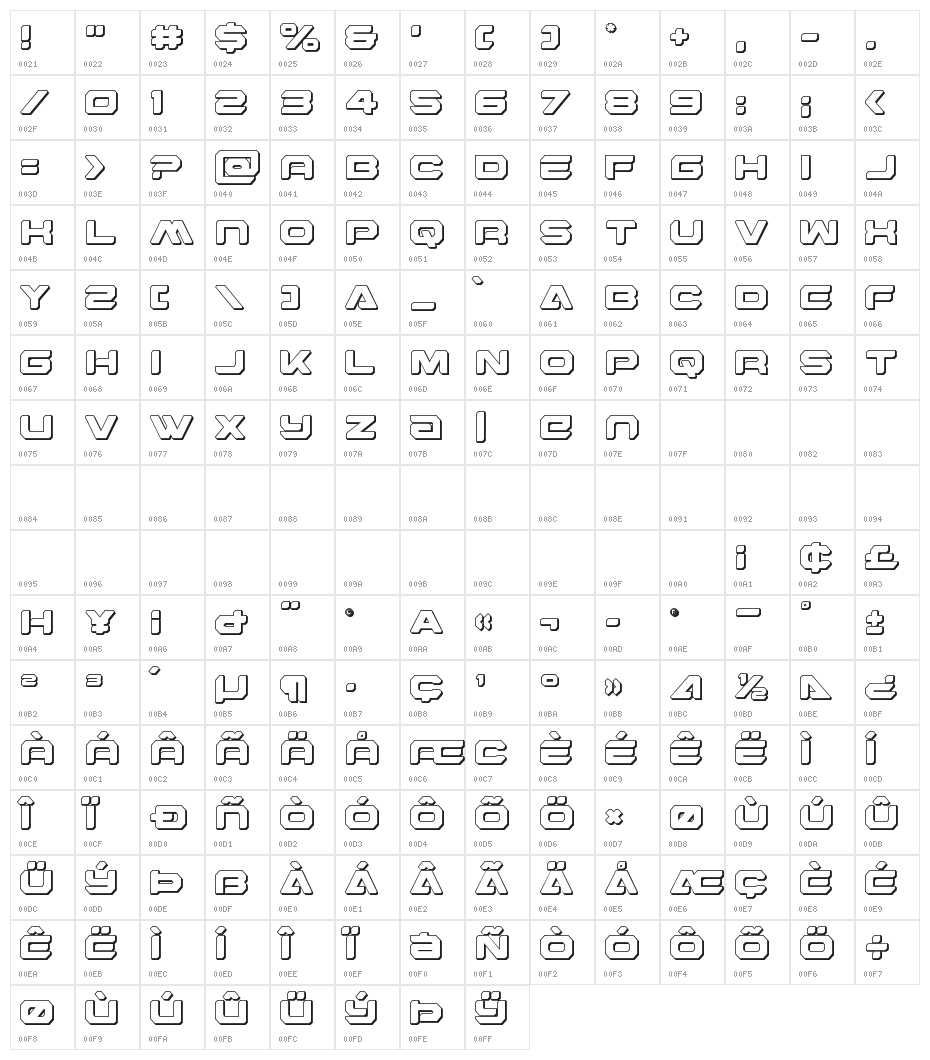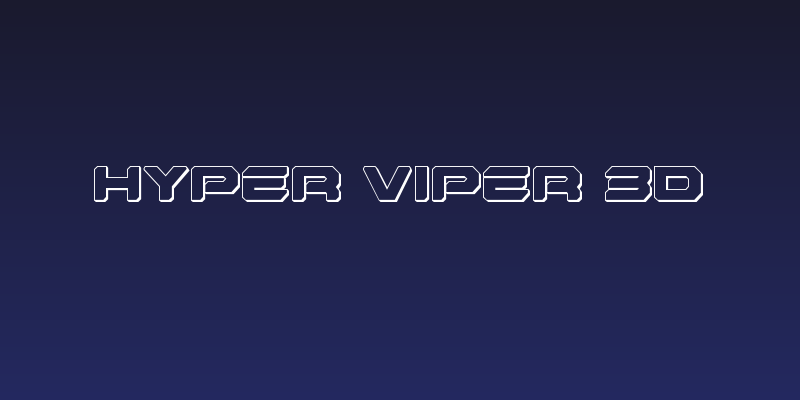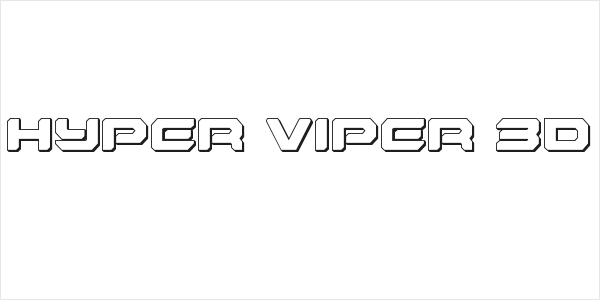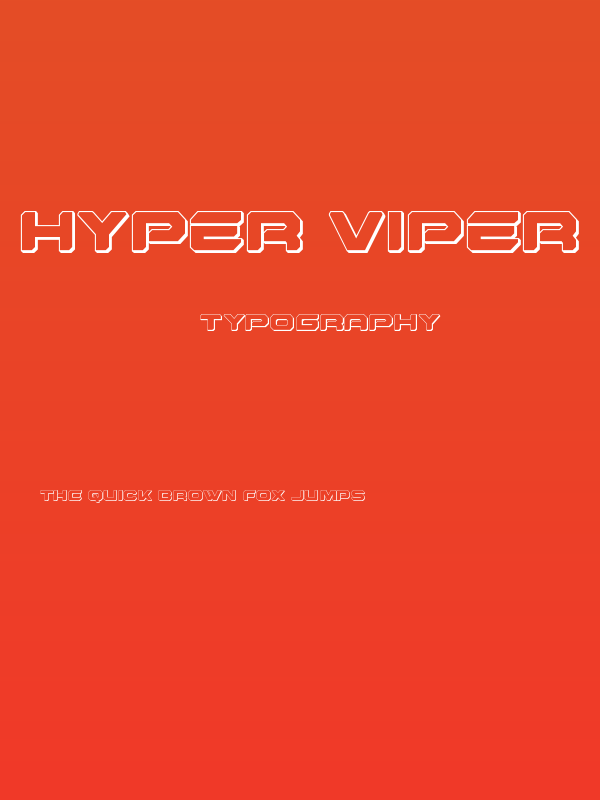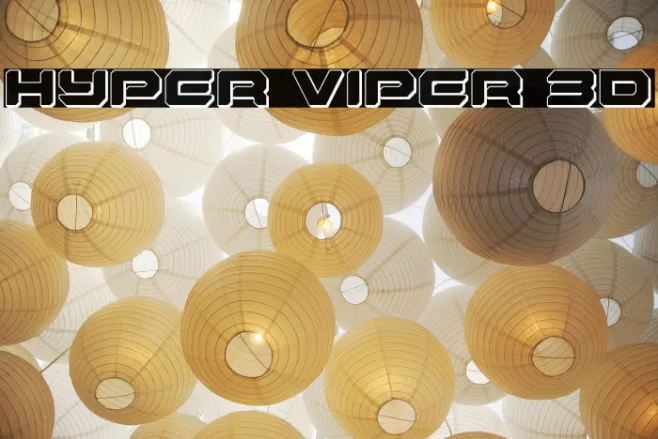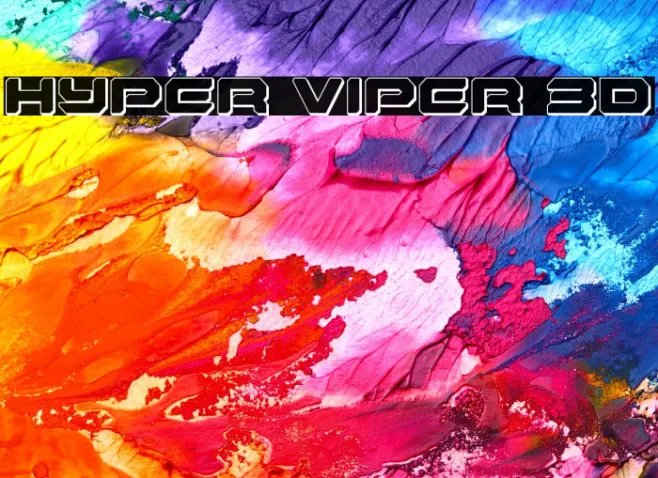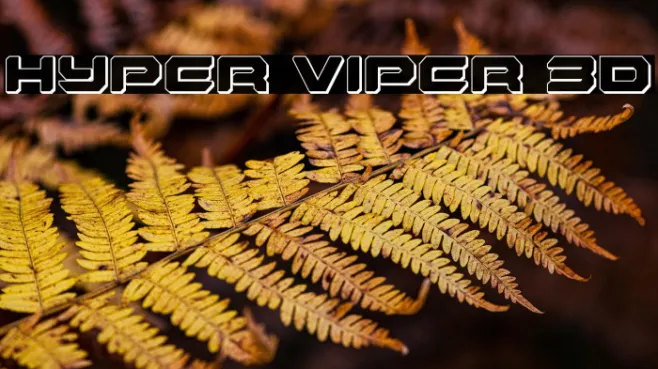
Hyper Viper 3D Font
Hyper Viper 3D Description
This font features a bold, three-dimensional style with a futuristic and geometric design. The characters are outlined with a shadow effect that gives them a 3D appearance, making them stand out prominently. The uppercase and lowercase letters share a consistent design, with sharp angles and a blocky structure. The numbers and special characters maintain the same aesthetic, ensuring uniformity across all glyphs. This font is ideal for projects that require a modern and eye-catching look, such as technology-related branding or sci-fi themed designs.
| Overall Style | Futuristic, Modern |
| Proposed Projects | Ideal for technology branding, sci-fi themes, video game titles, and futuristic posters. |